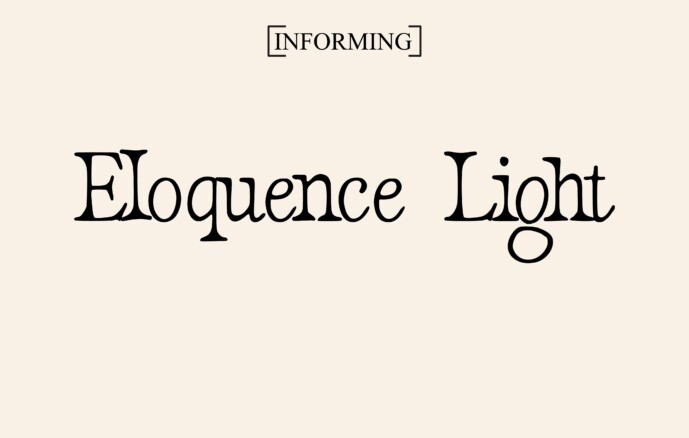
Eloquence Light Font
Eloquence Light Expertly designed to be a true favorite, this font has the potential to take your creative ideas to the highest level
This font is legible and looks great as a title or body text. This font would be perfect for many different designs for magazine headlines, t-shirt,social media, branding, wedding invitations, cards, etc.